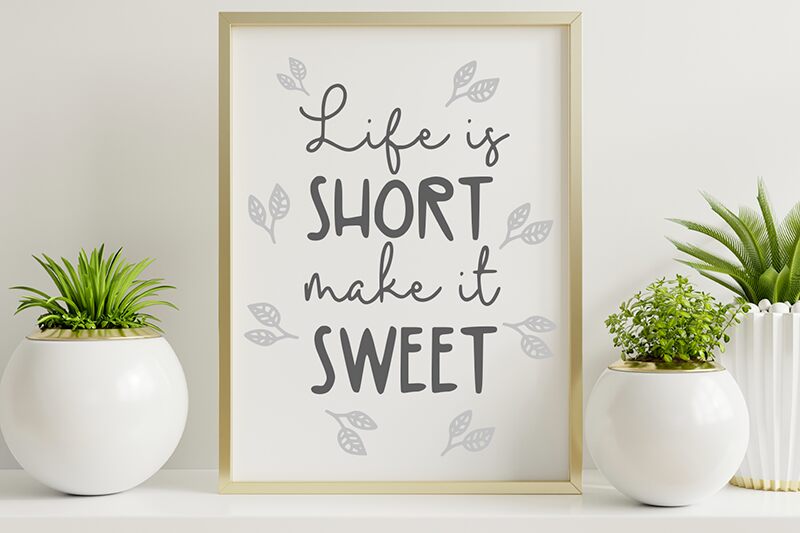
Welcome to the Baby Mayora Sans font designed by Panggah Laksono from Abo Daniel Studio. With its handwritten and curved style, this font is perfect for adding a unique touch to your projects, such as graphic design, logos, branding materials, invitations, and more.
BABY MAYORA SANS
- crafty font trio -